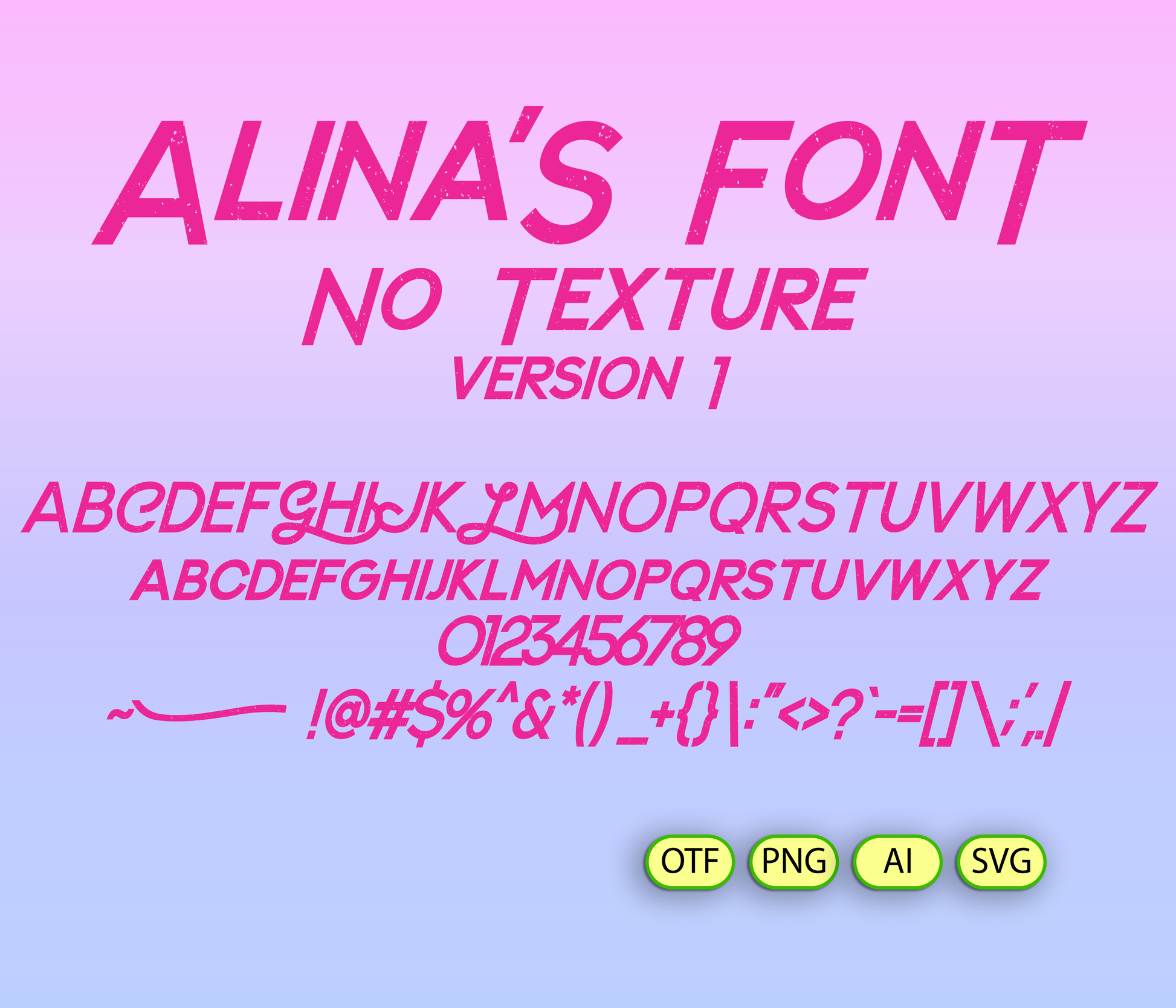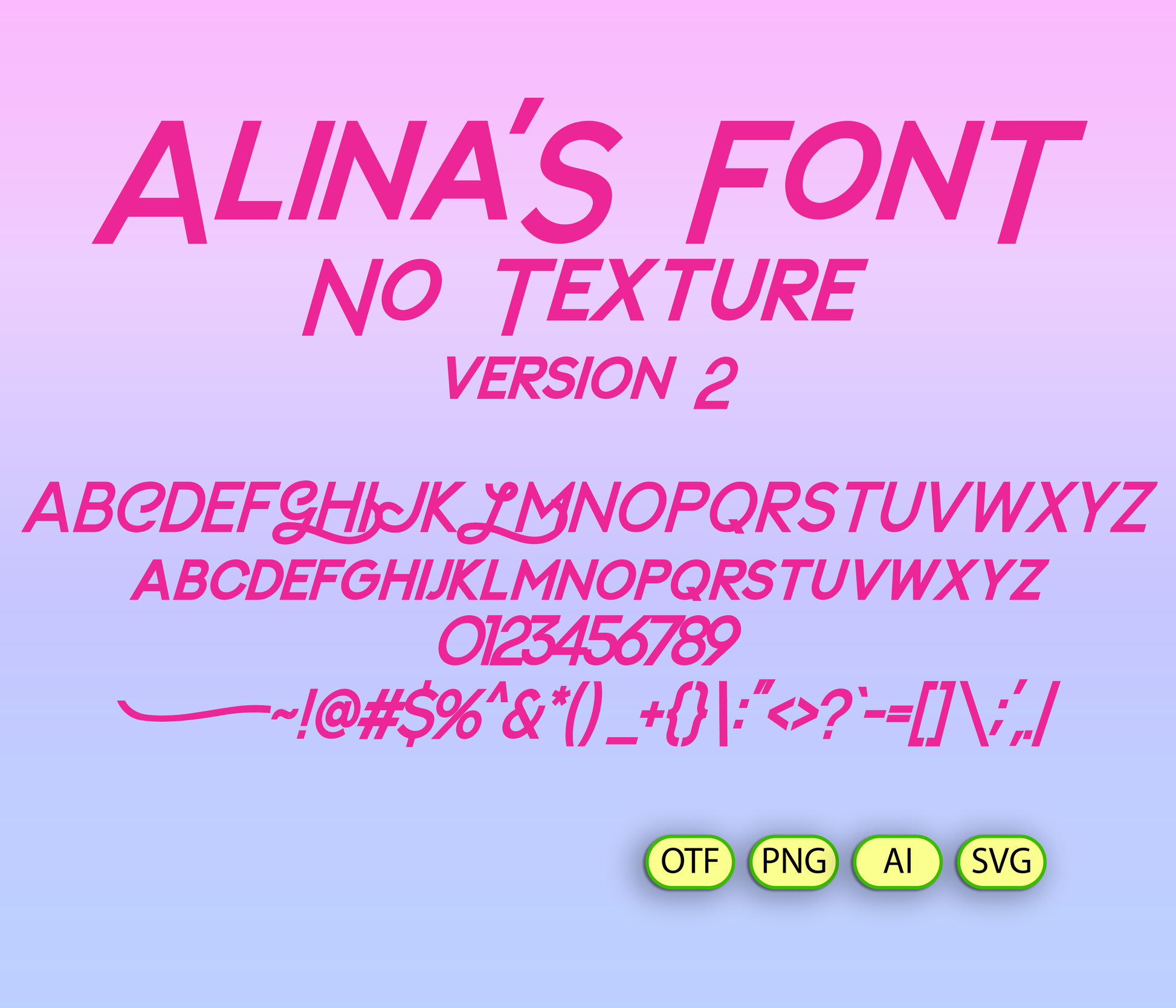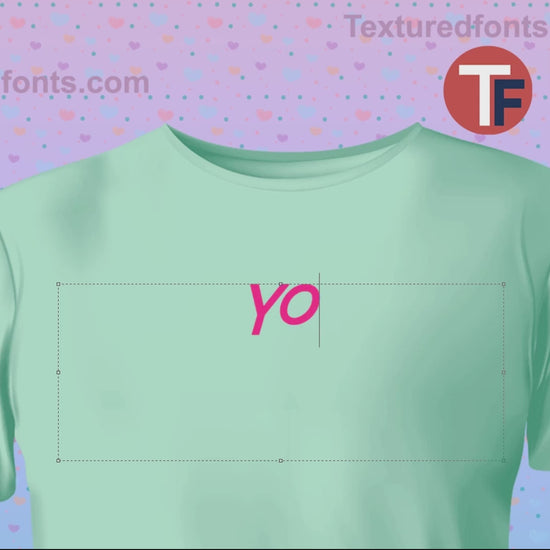
Telenovela Romance Font
Capture the Heartfelt Charm with the Telenovela Romance Font
Immerse your designs in the whimsical and dramatic world of a beloved telenovela series with our specially crafted Telenovela Romance-inspired font. Perfect for fans and creators alike, this font embodies the twists and emotional depth of the series, making it ideal for projects that require a touch of romance and intrigue. Whether you're creating event invitations, designing fan content, or crafting promotional materials, our Telenovela Romance font ensures your projects resonate with the warmth and unique storytelling style of the show.
Inspired by the vibrant aesthetics and heartfelt narrative of a popular telenovela, this font features elegant, flowing script lines mixed with playful loops, capturing the blend of everyday reality and dramatic exaggeration. The complete character set includes uppercase and lowercase letters, numbers, and special symbols, enabling versatile use across various design applications:
- Event Invitations: Craft beautiful, themed invitations for weddings, viewing parties, or fan gatherings.
- Digital Media: Enhance blogs, social media posts, and fan sites with eye-catching titles and text.
- Merchandising: Create unique apparel and merchandise that embodies the spirit of the series.
- Promotional Materials: Design engaging flyers, posters, and advertisements for related events or productions.
- Personal Projects: Personalize gifts, scrapbooks, or home decor projects with a narrative flair.
Our Telenovela Romance font not only pays homage to the series but also invites you to bring your own stories to life with elegance and dramatic flair. Whether you're engaging audiences, creating themed merchandise, or adding a personal touch to your designs, this font lets you communicate with the emotional richness and playful sophistication that defines a beloved telenovela series. Ready to add a novel twist to your creative projects? Let this font help you weave compelling narratives in every design.